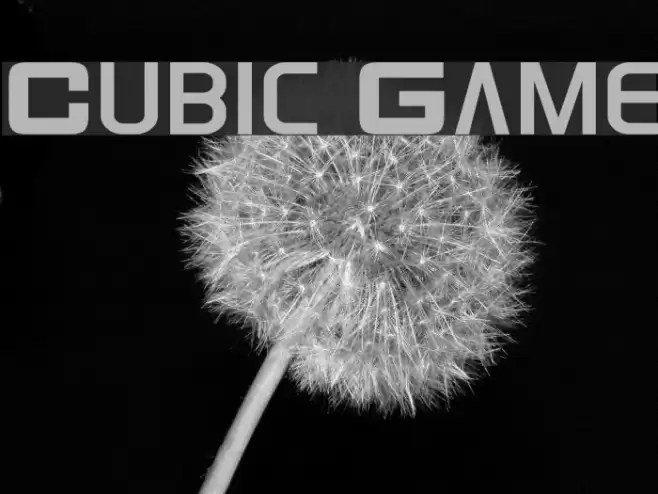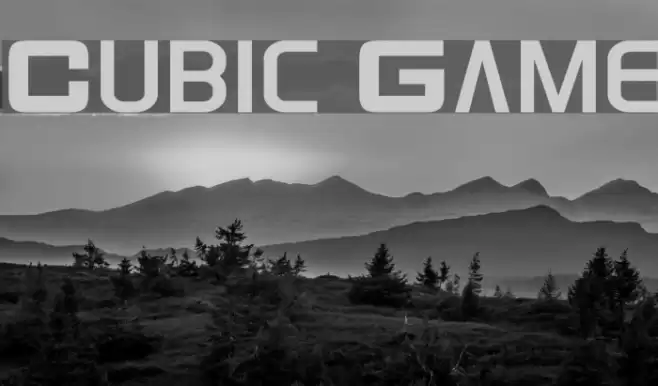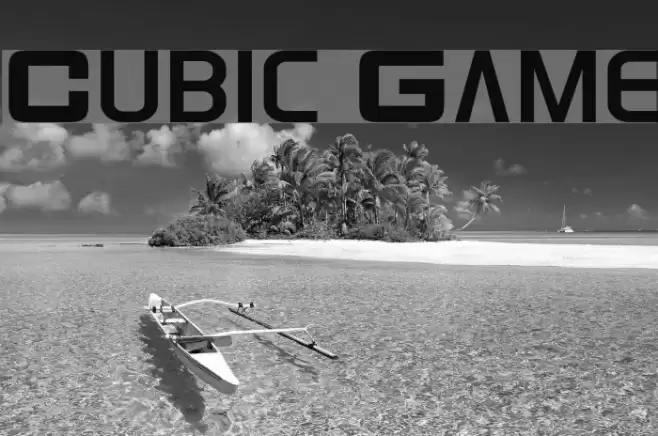
Cubic Game Font
Cubic Game Description
This font exhibits a bold, geometric style with a modern and futuristic aesthetic. The characters are constructed with sharp angles and straight lines, creating a sense of precision and strength. The uppercase letters are particularly striking, with a uniform height and width that enhances their bold appearance. The lowercase letters maintain the same geometric style, providing consistency across the typeface. The numerals and special characters are designed to match the overall aesthetic, ensuring a cohesive look. This font is ideal for projects that require a strong, contemporary feel.
A bold, geometric font with a modern and futuristic style from Uncategorized fonts.
- Proposed Projects: Ideal for branding, logos, headlines, and digital interfaces that require a modern and strong visual impact.